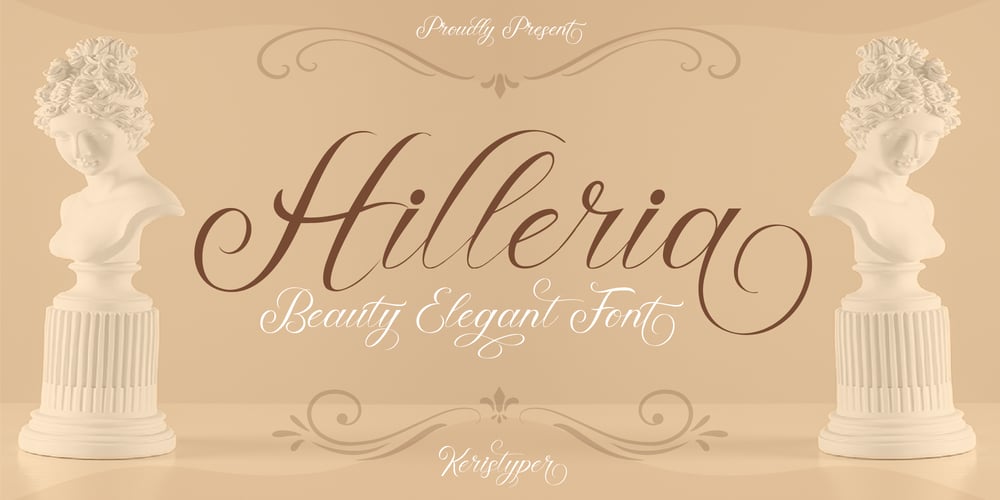
Hilleria Font Family was designed by Tezar Tantular and published by Keristyper Studio. Hilleria contains 1 styles and family package options. Hilleria is a calligraphy script font that comes with exquisite change characters, a kind of classic decorative script with a modern twist, designed with great detail to bring out a stylish elegance. This font is good for logo design, Social media, Movie Titles, Books Titles, short text even long text letters, and good for your secondary text font with sans or serif.Featured: Standard Uppercase & Lowercase Numeral & Punctuation Multilingual : ä ö ü Ä Ö Ü ß ¿ ¡ Alternate & Ligature PUA encoded We recommend programs that support the OpenType feature and the Glyphs panel such as Adobe applications or Corel Draw. so you can use all the variations of the glyphs. Hope you enjoy our fonts!